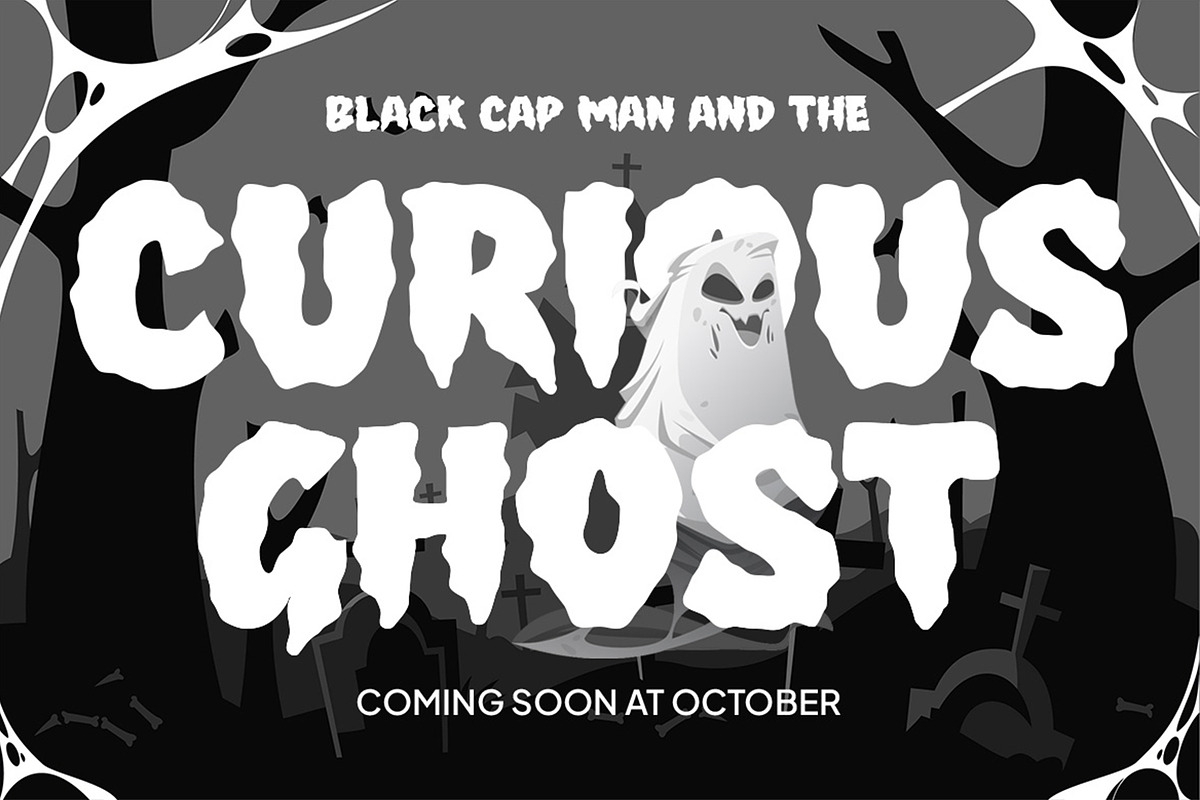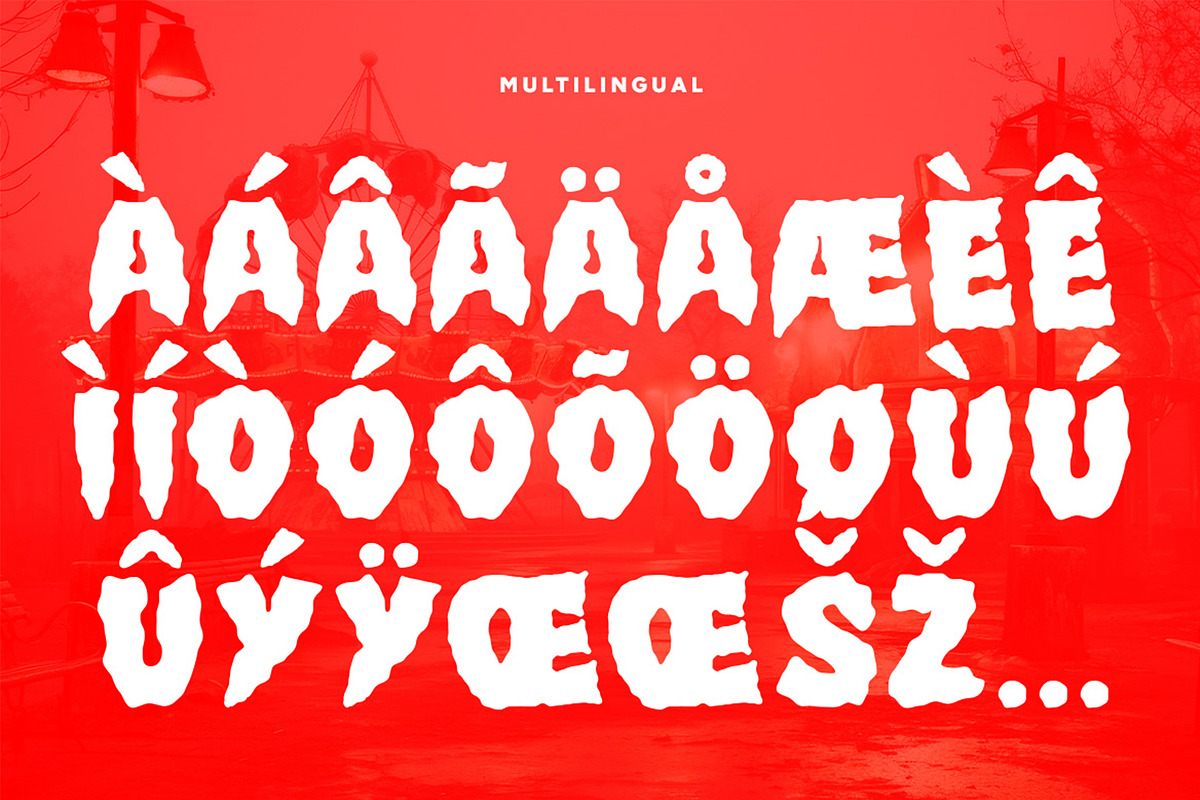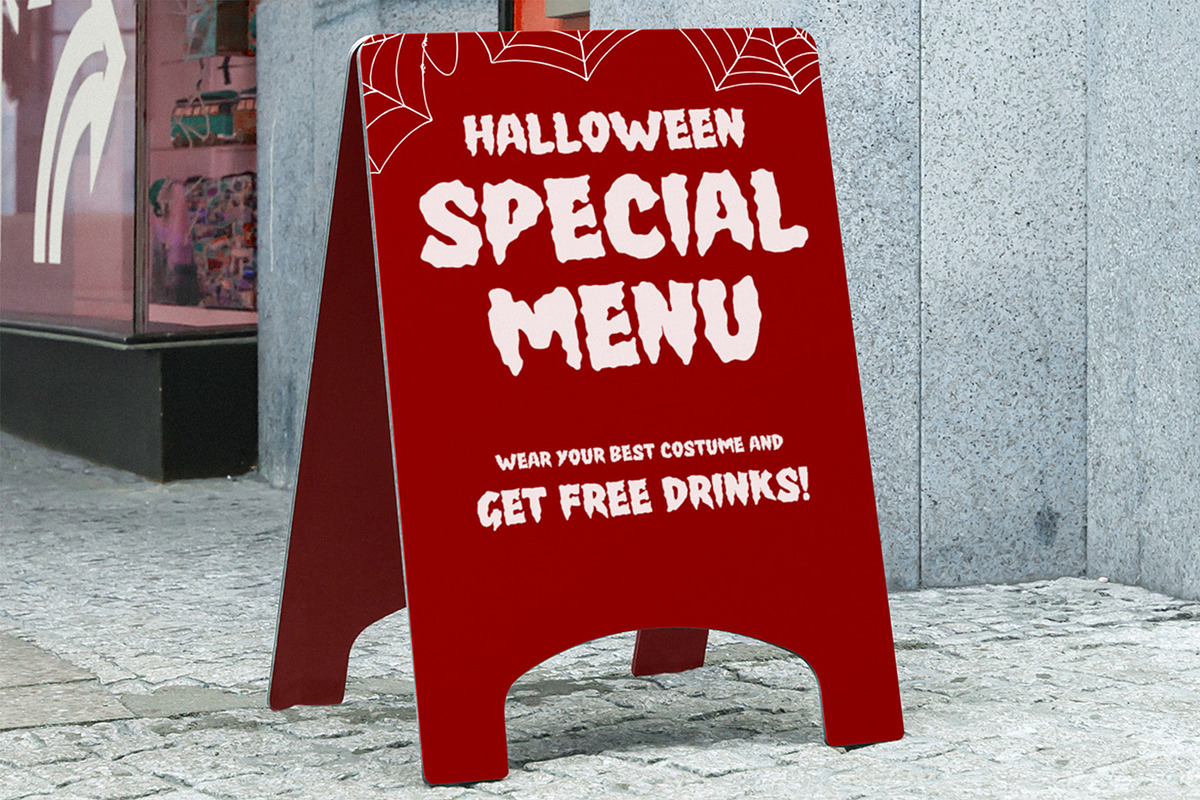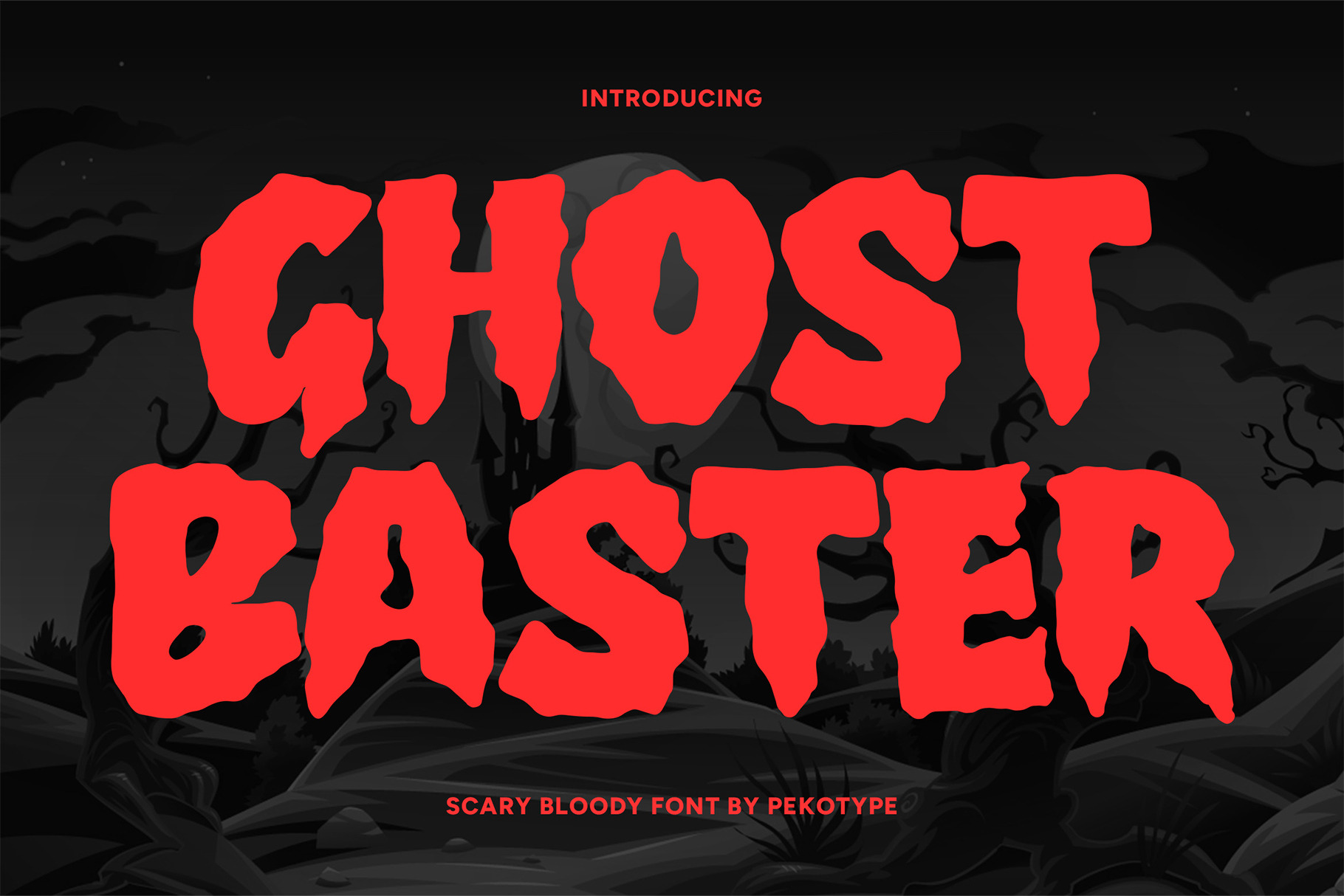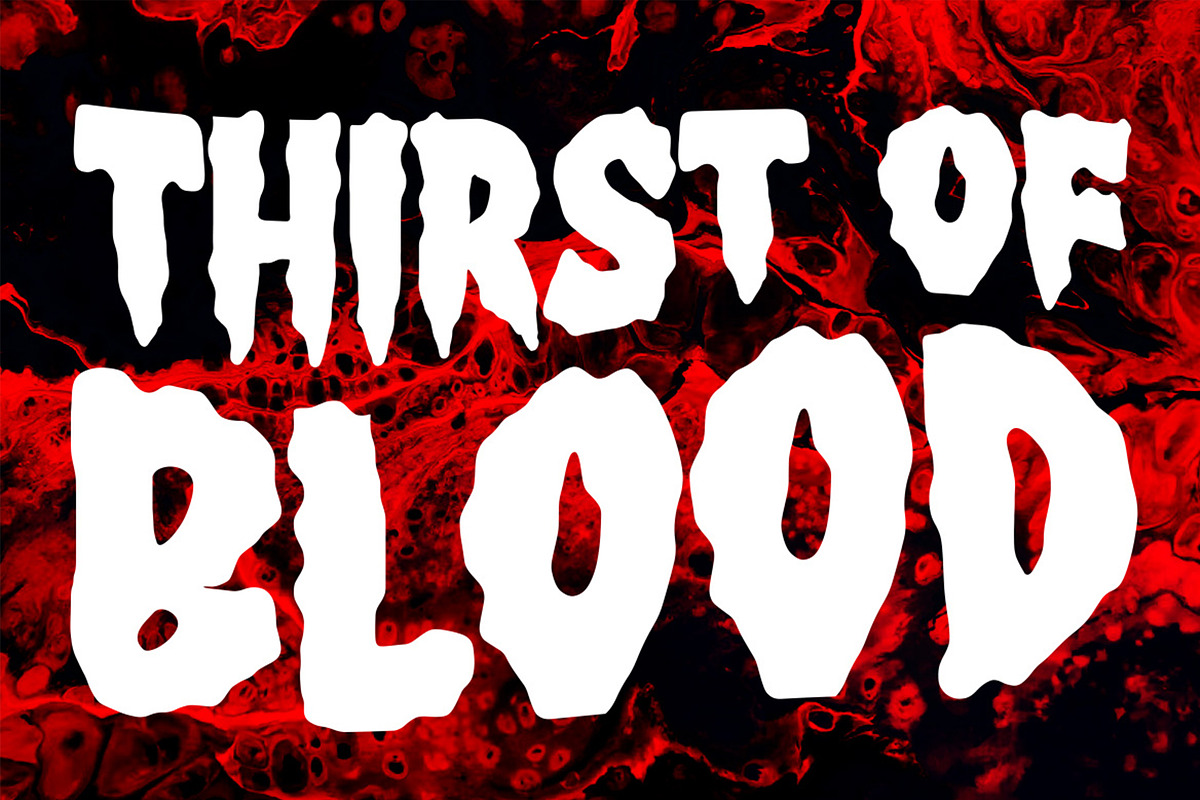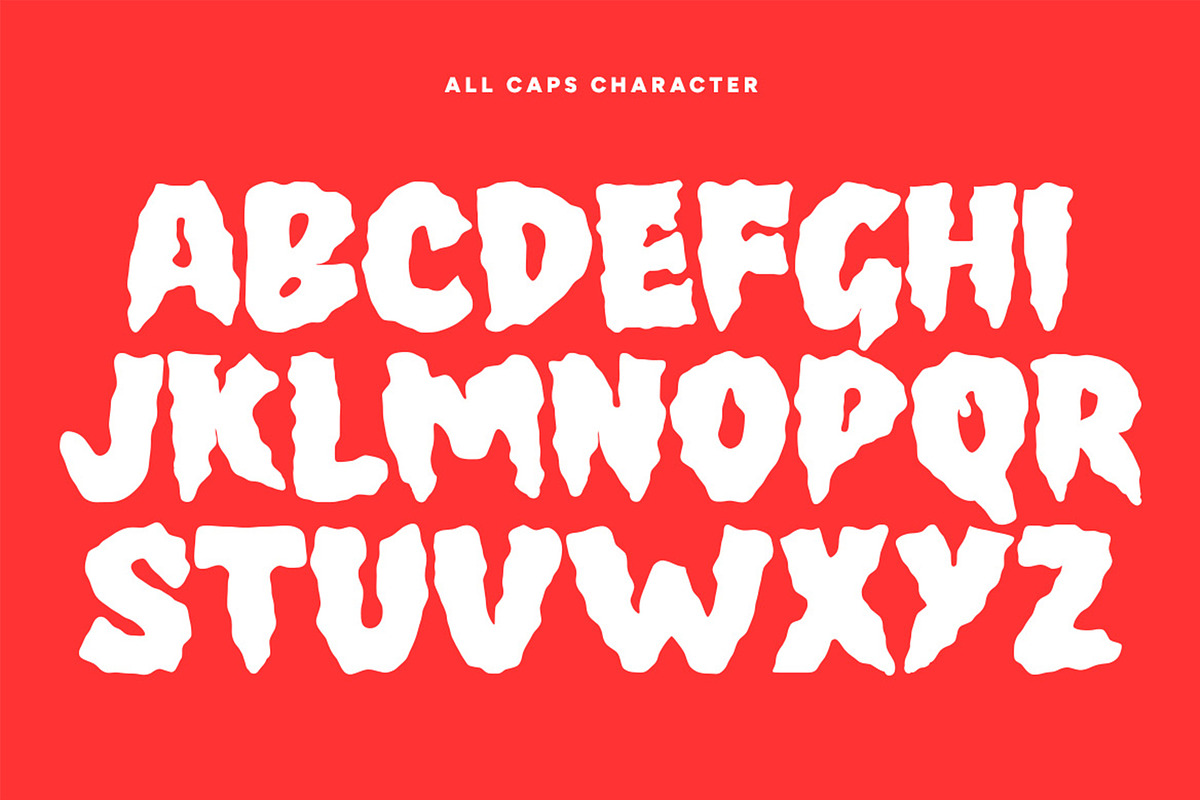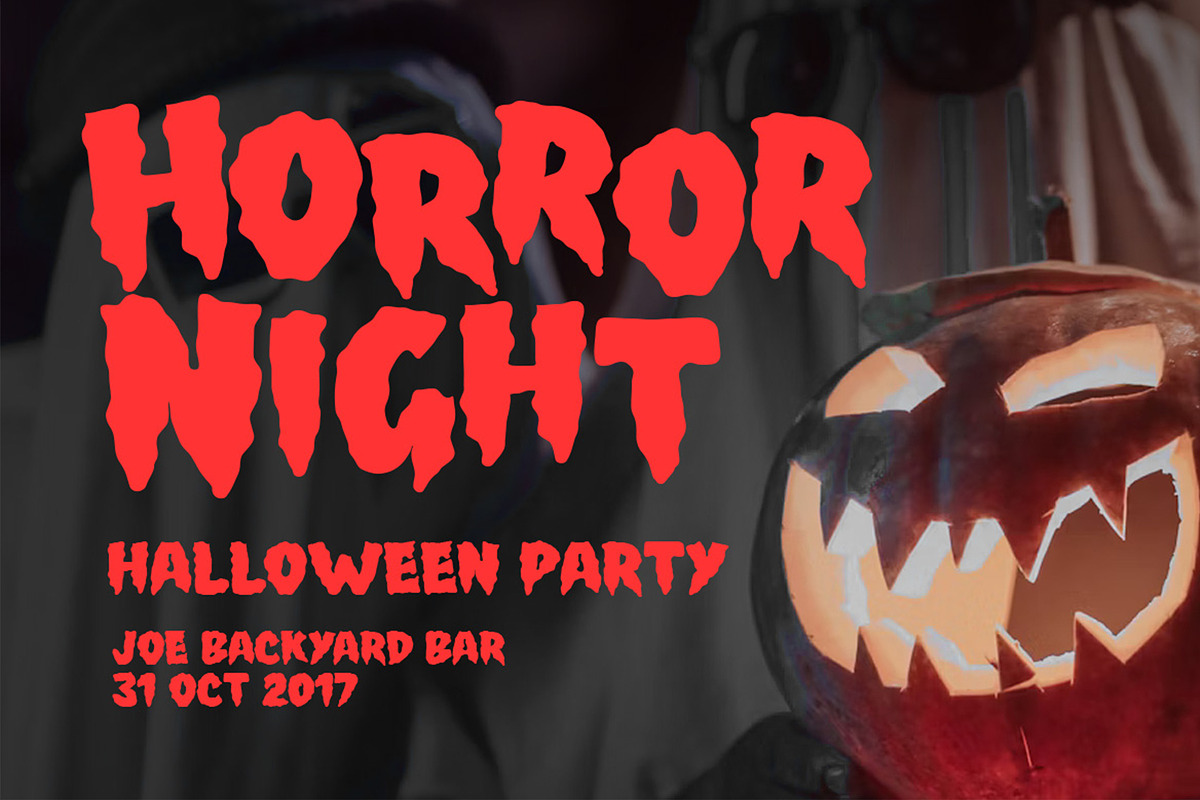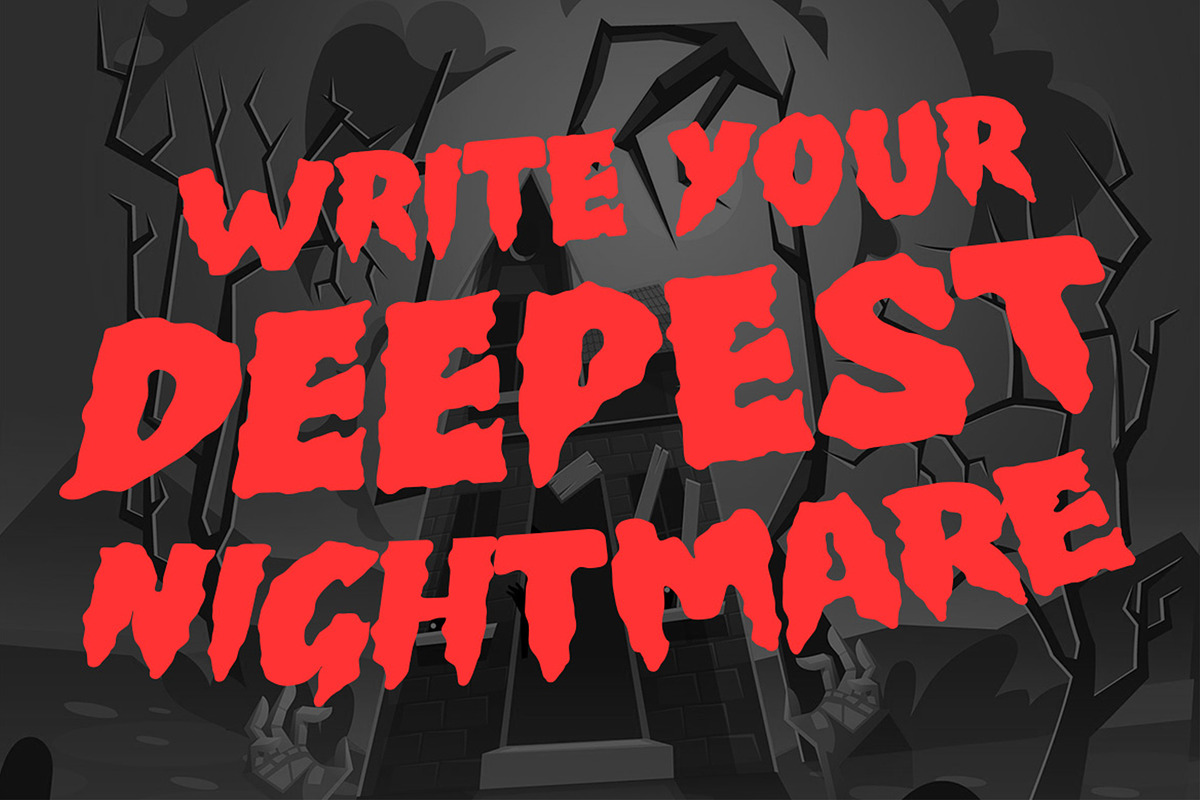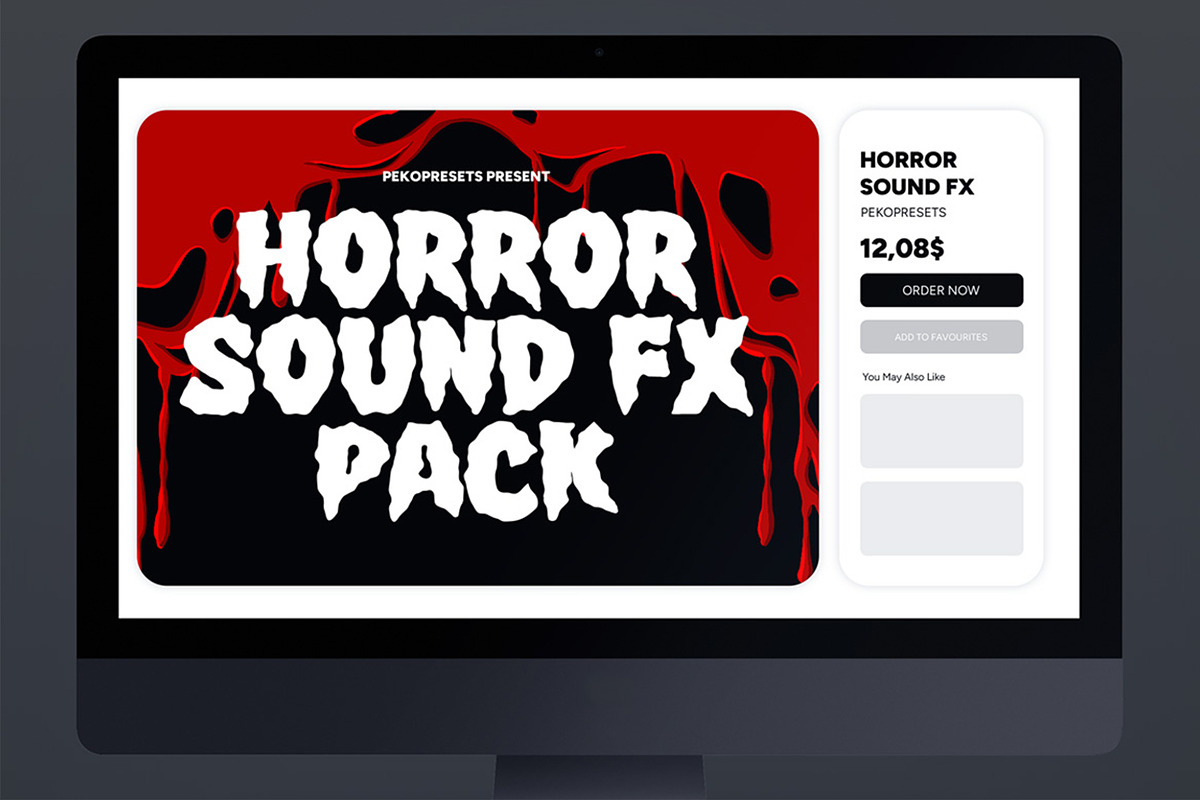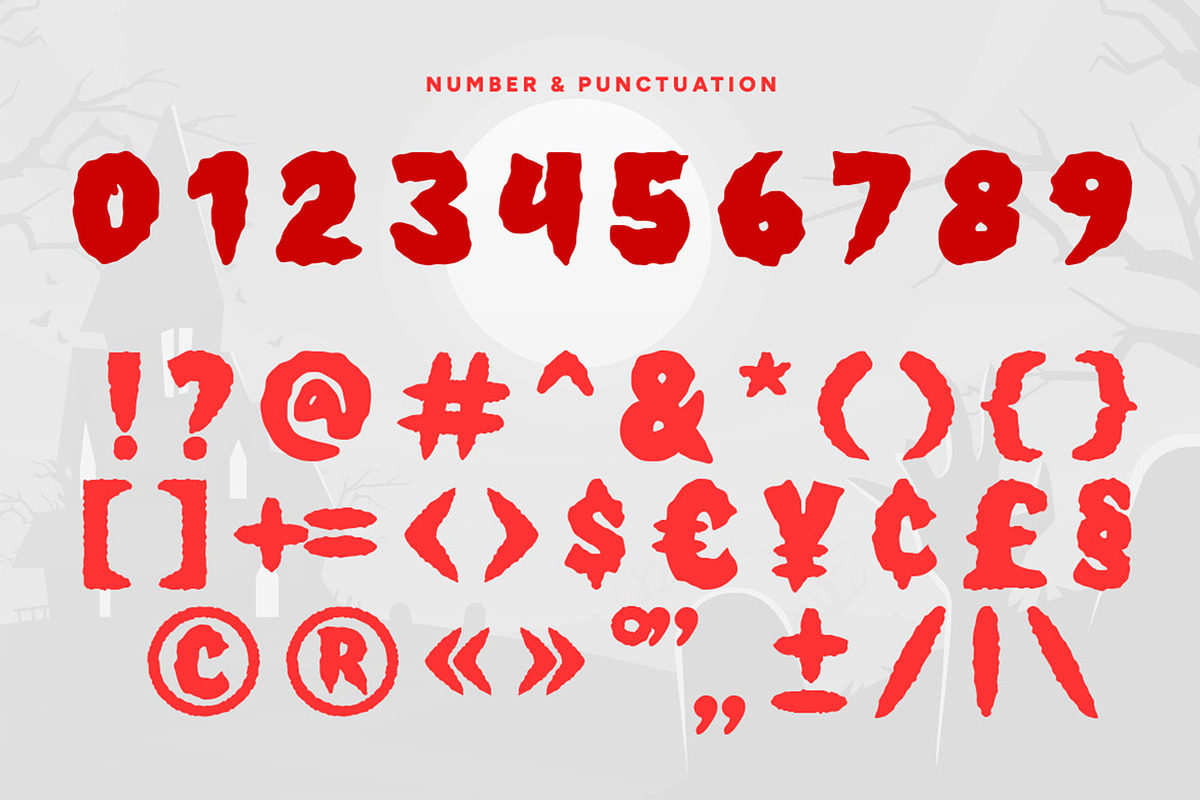
Ghost Baster - Scary Bloody Font
Introducing GHOST BASTER – Scary Bold Horror Font GHOST BASTER is a bold and spooky display font created to bring a terrifying atmosphere to your design projects. With its bloody strokes, scary shapes, and horror-inspired details, this typeface is perfect for any design that needs a frightening and dramatic look.
Ideal for Halloween posters, horror movie titles, spooky branding, event promotions, game designs, and social media content, GHOST BASTER ensures your message stands out with a chilling vibe.
This font includes uppercase letters, numbers, punctuation, and multilingual support, making it versatile for both creative and professional use. Whether you’re designing for haunted attractions, Halloween parties, or dark-themed marketing campaigns, GHOST BASTER will set the perfect scary tone.
If you are searching for a bold horror display font that combines fear, style, and uniqueness — GHOST BASTER is the ultimate choice.
- All-Caps Font
- Number, Symbol, & Punctuation